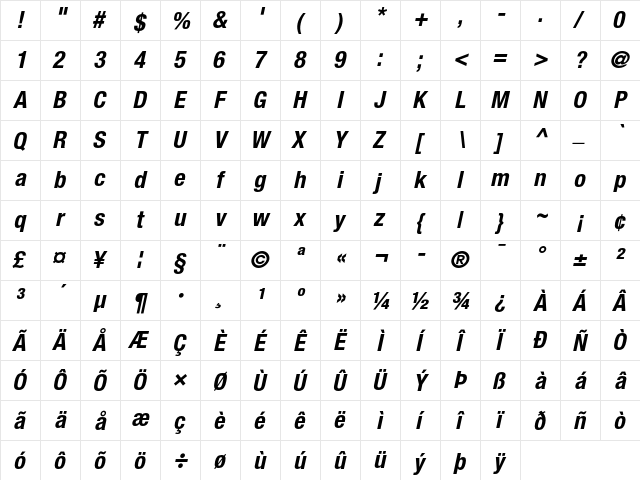
Helvetica Neue 77 Bold Condensed Oblique Font Preview
Design Context for Helvetica Neue Typeface
Helvetica Neue is a composed and adaptable typeface that performs quietly and consistently across a wide range of design contexts. Its italic angle brings a sense of urgency and motion to the letterforms. The heavy weight commands attention and anchors typographic hierarchies. The condensed width makes it efficient for tight spaces without sacrificing legibility.
Pro Tip: Try Helvetica Neue for annotation and caption copy alongside an upright companion — the contrast in angle creates a dynamic but ordered typographic system.